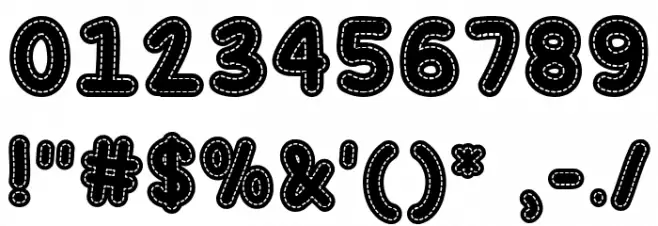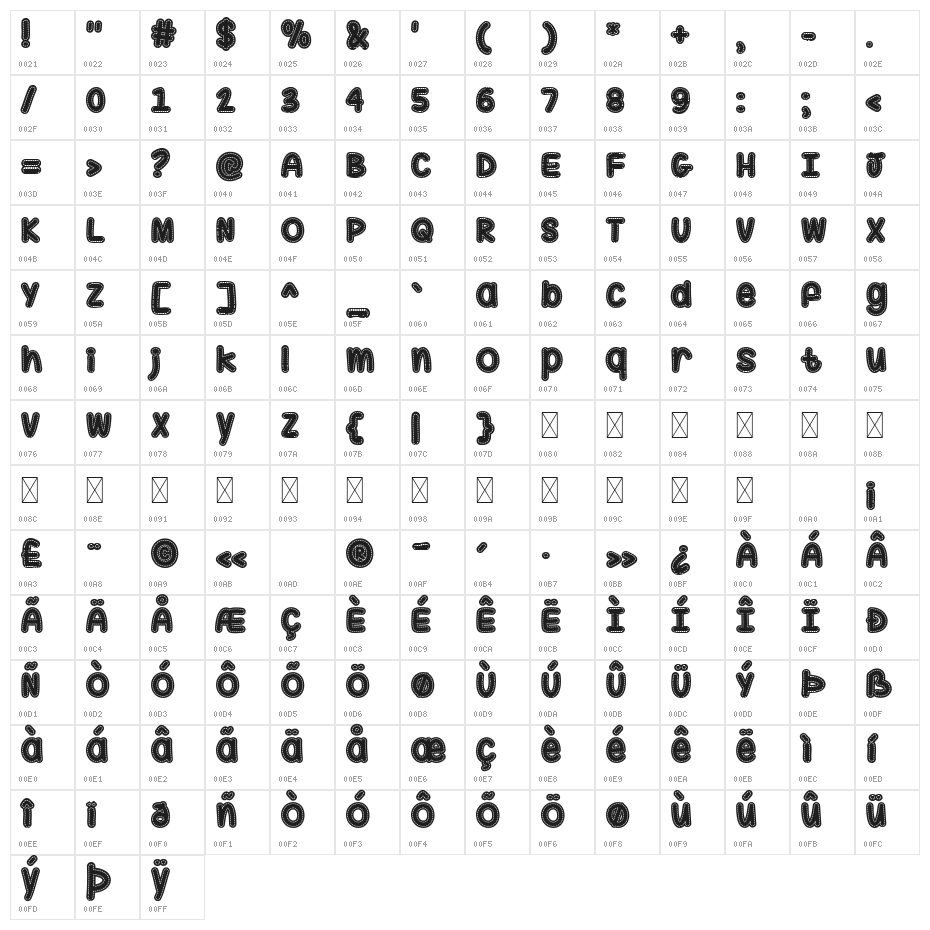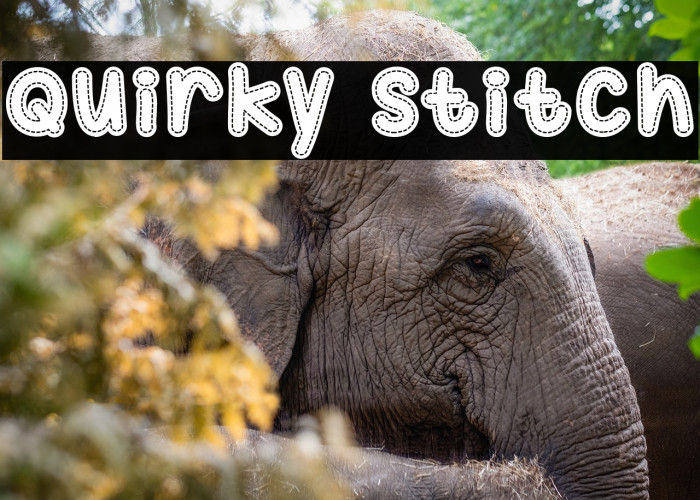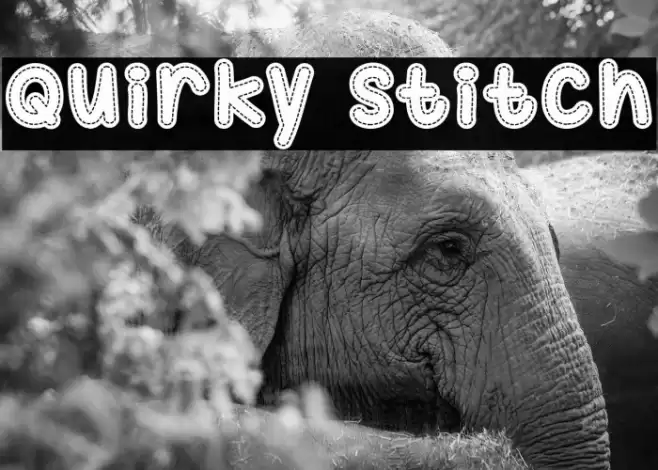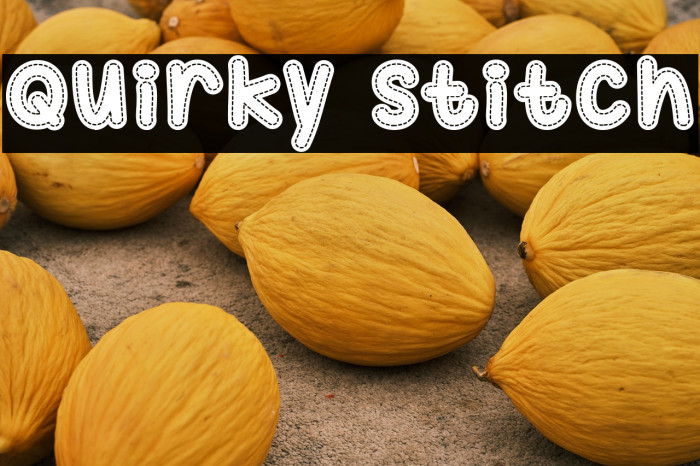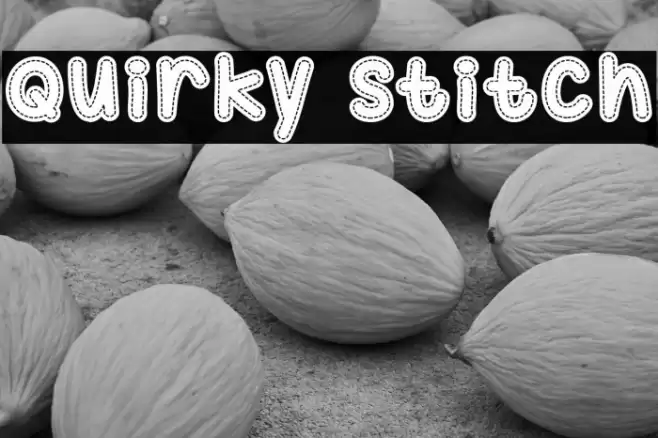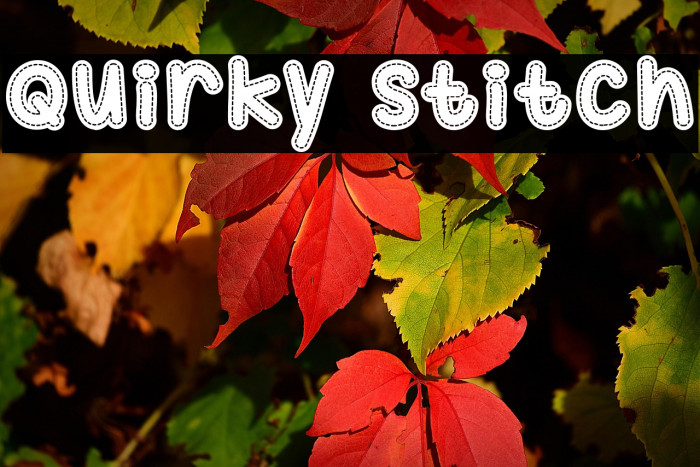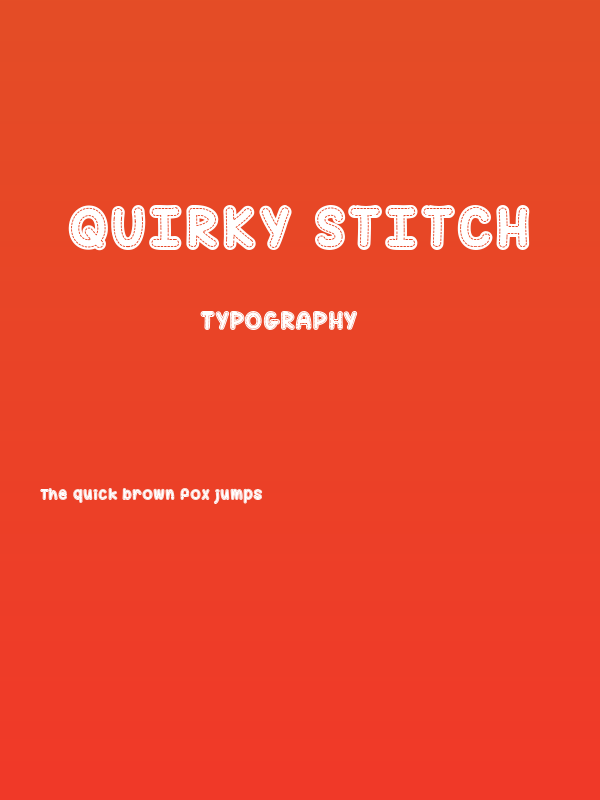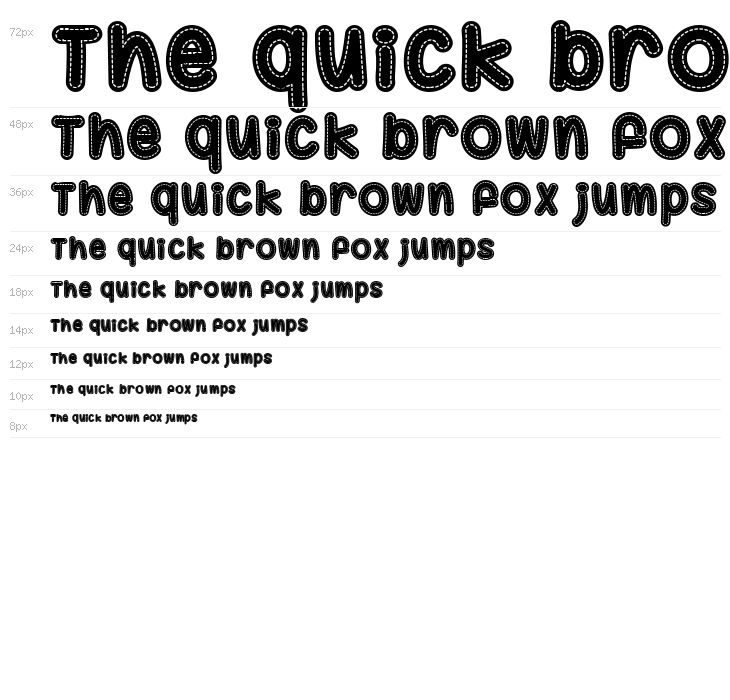
Quirky Stitch Font
Quirky Stitch Description
This font features a playful and whimsical design, characterized by its bold, rounded letters with a stitched outline effect. The letters are evenly spaced and have a consistent thickness, giving them a uniform appearance. The stitching detail adds a crafty, handmade feel, making it ideal for projects that require a touch of creativity and fun. The font includes both uppercase and lowercase letters, numbers, and a variety of special characters, ensuring versatility in its application. Its boldness and unique style make it stand out, perfect for eye-catching designs.
| Proposed Projects | Great for children's books, craft projects, playful branding, and DIY-themed designs. |